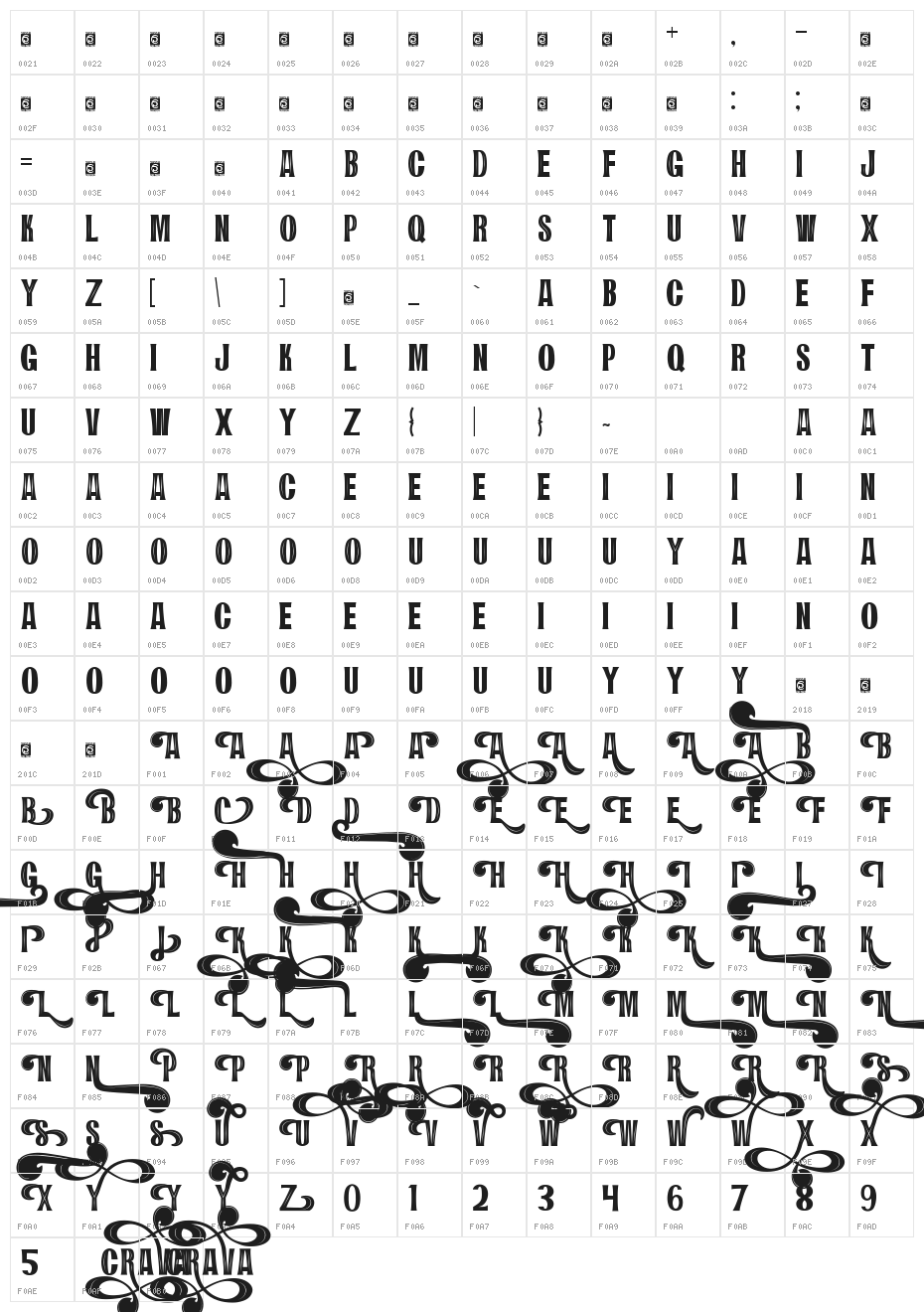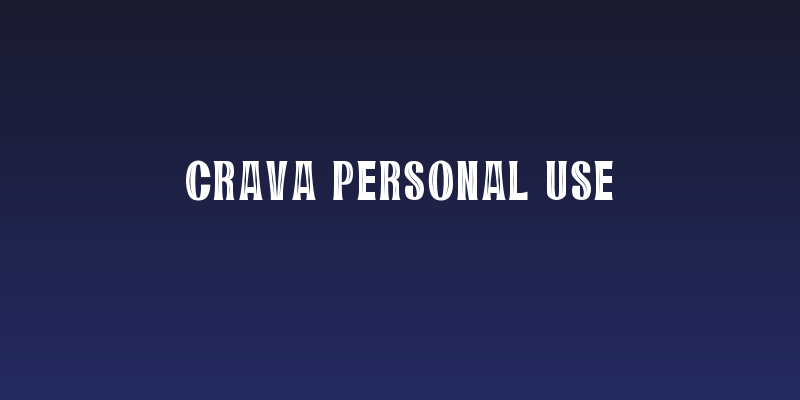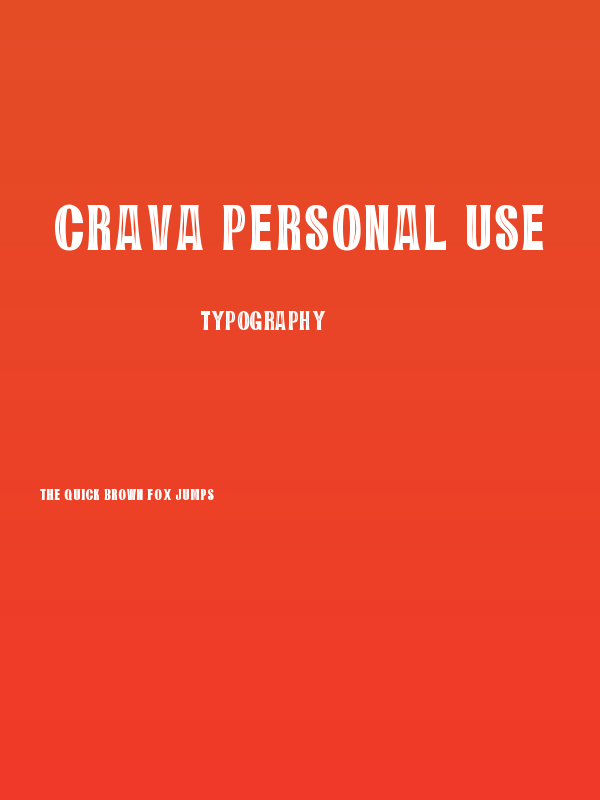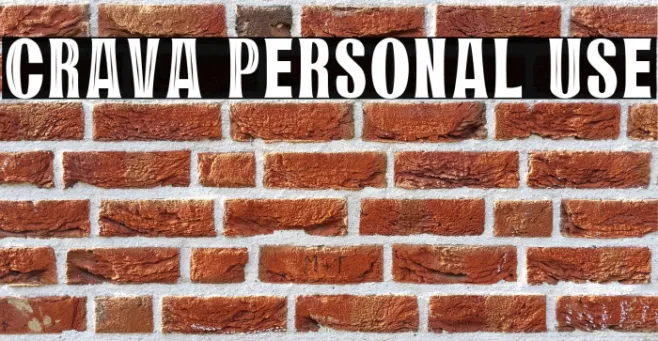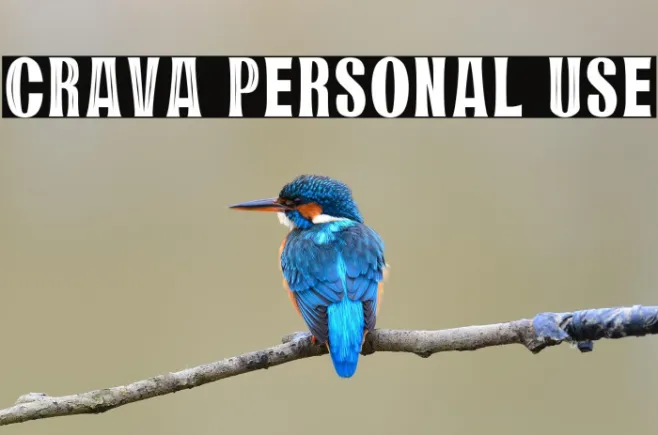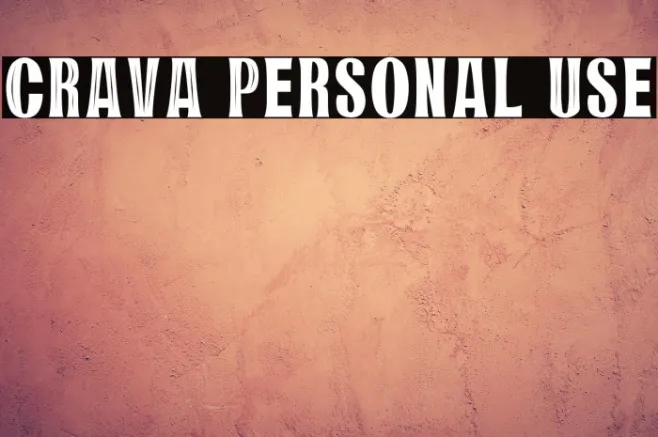
CRAVA Personal Use Font
CRAVA Personal Use Description
This font features a bold and striking design with a strong presence. The characters exhibit a unique blend of thick and thin strokes, creating a dynamic and eye-catching appearance. The uppercase letters are particularly prominent, with a slight inward curve that adds a touch of elegance and sophistication. The font maintains a consistent weight throughout, ensuring readability while still making a statement. The overall style is reminiscent of vintage poster fonts, making it ideal for projects that require a bold and impactful look.
| Proposed Projects | Ideal for posters, headlines, branding, and any design requiring a bold, vintage aesthetic. |